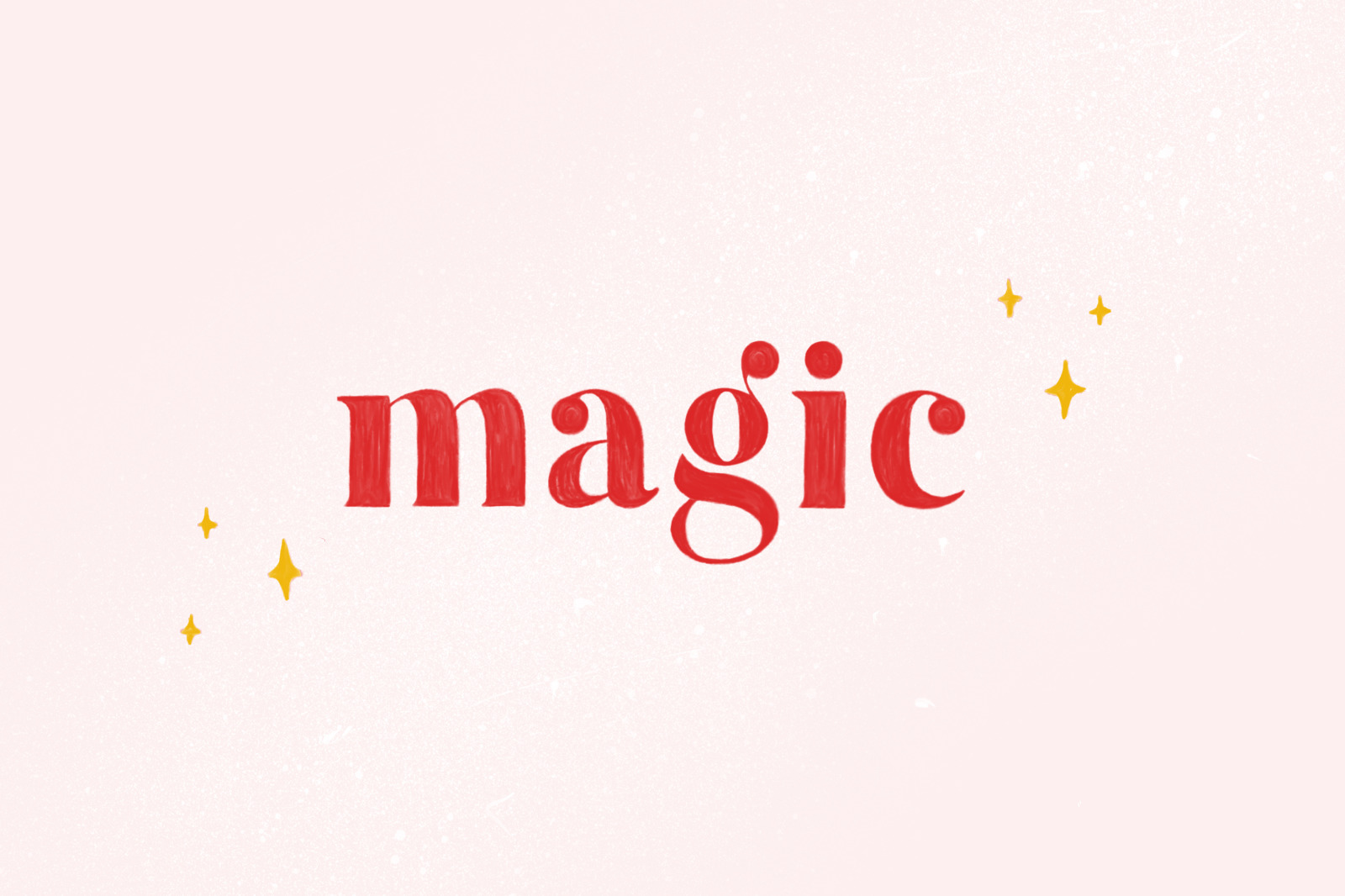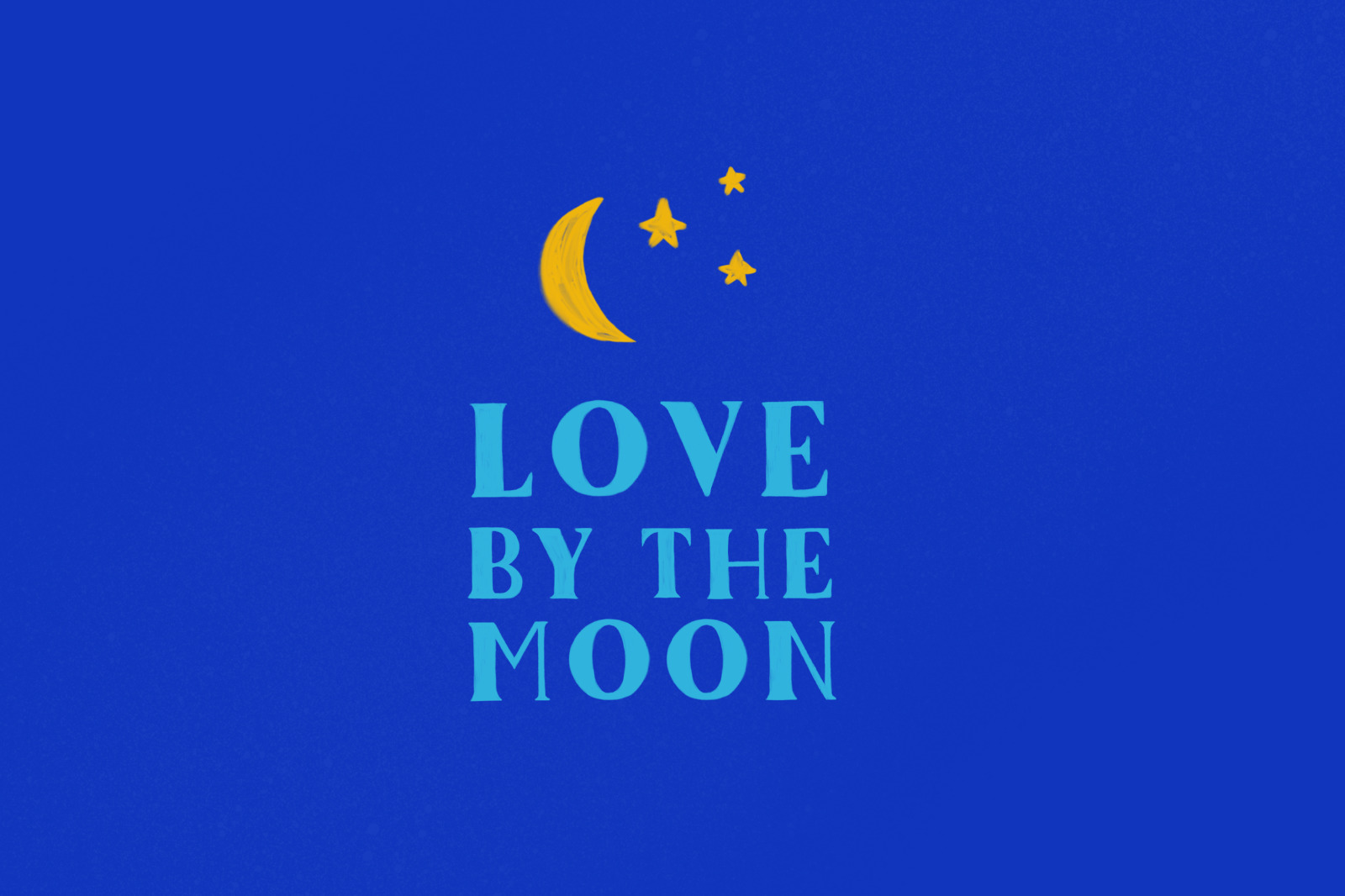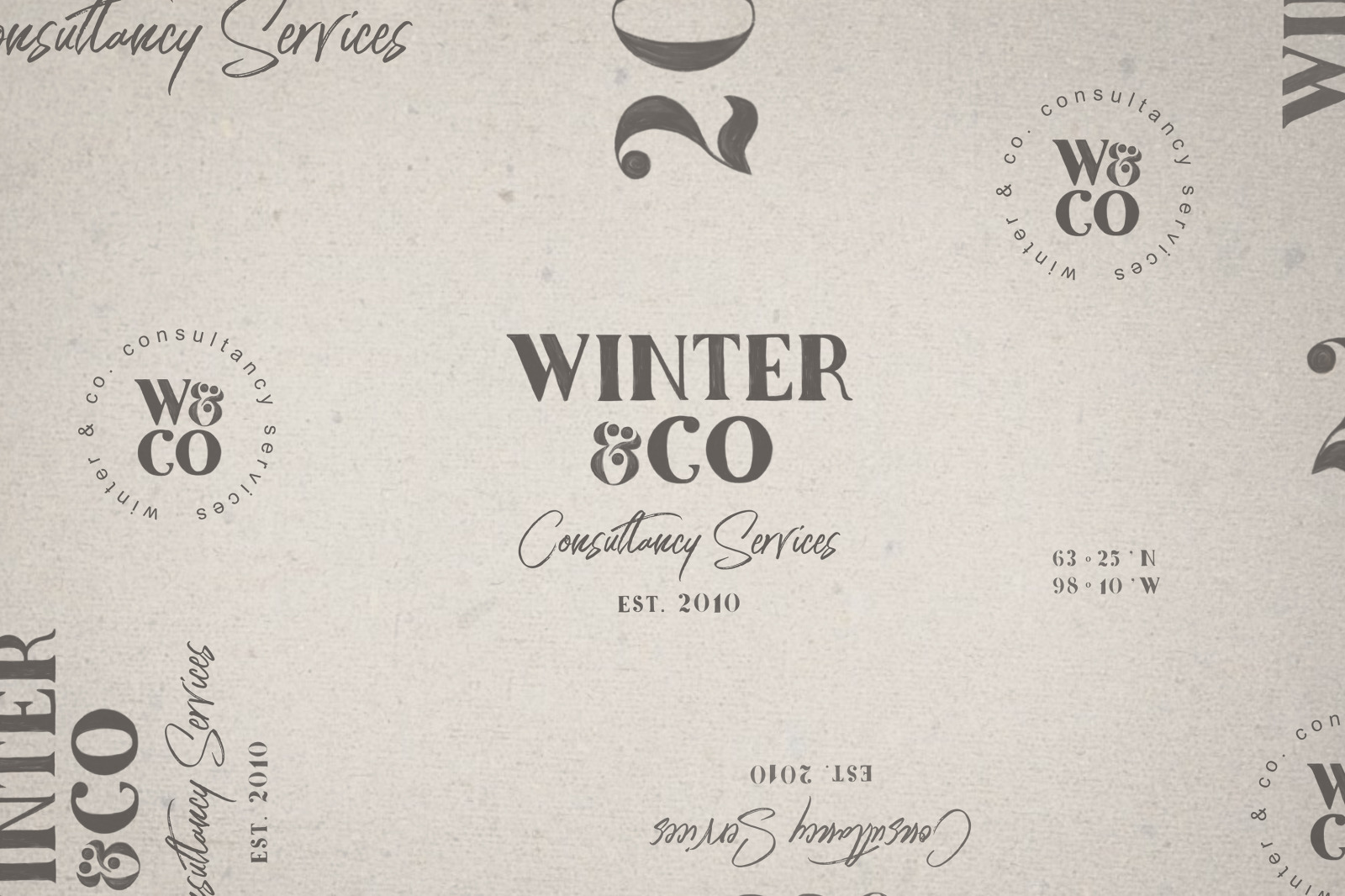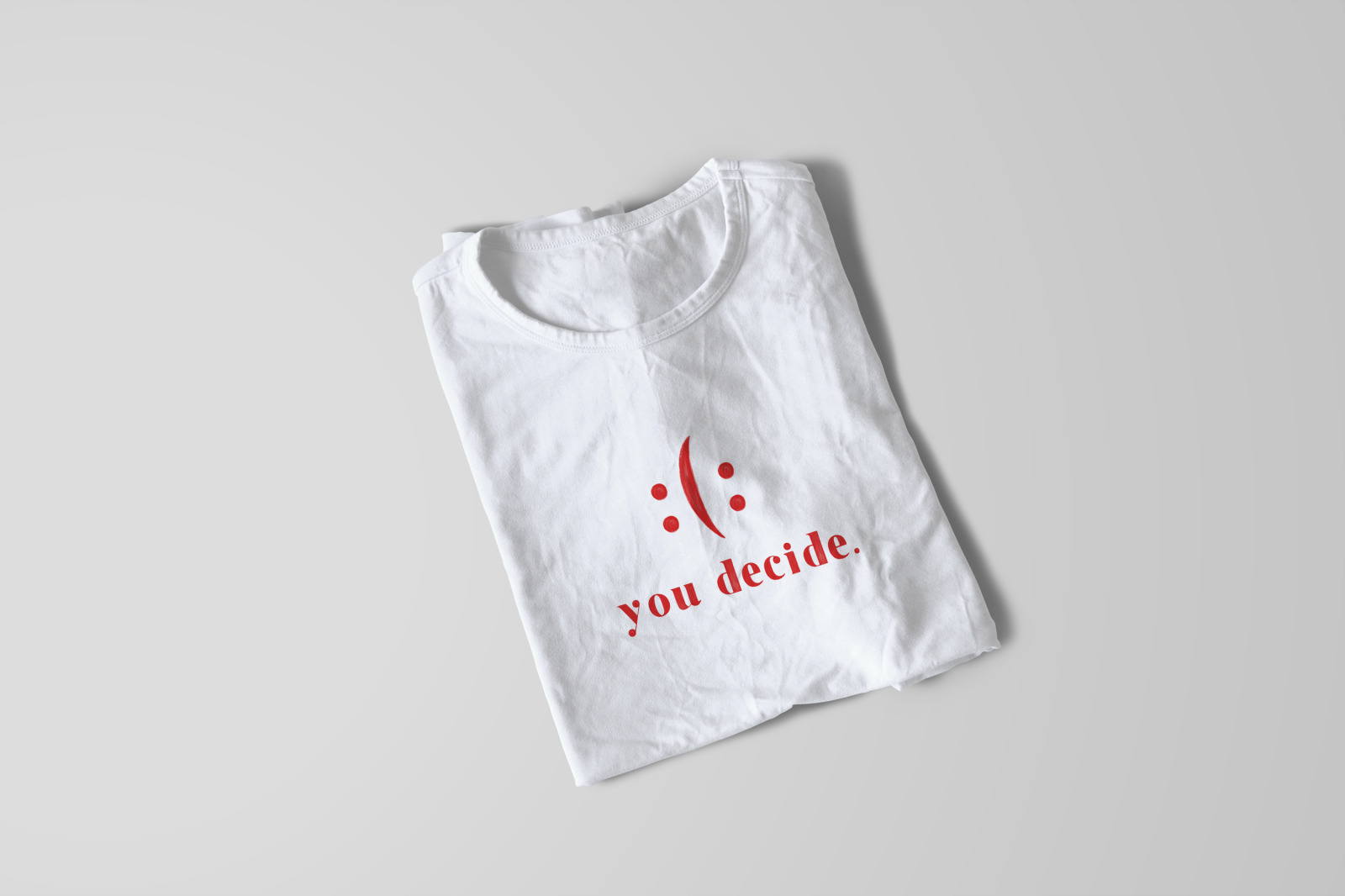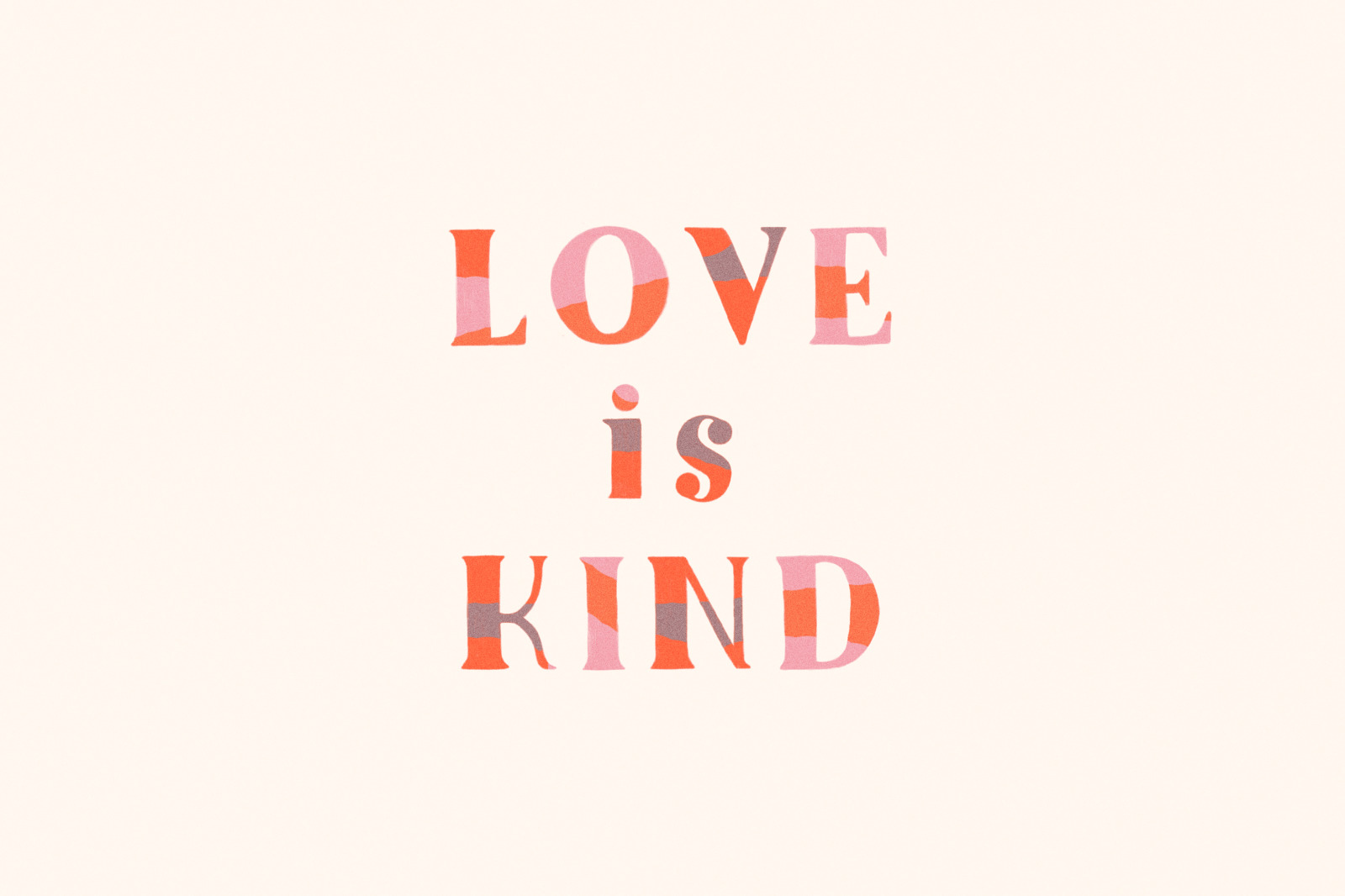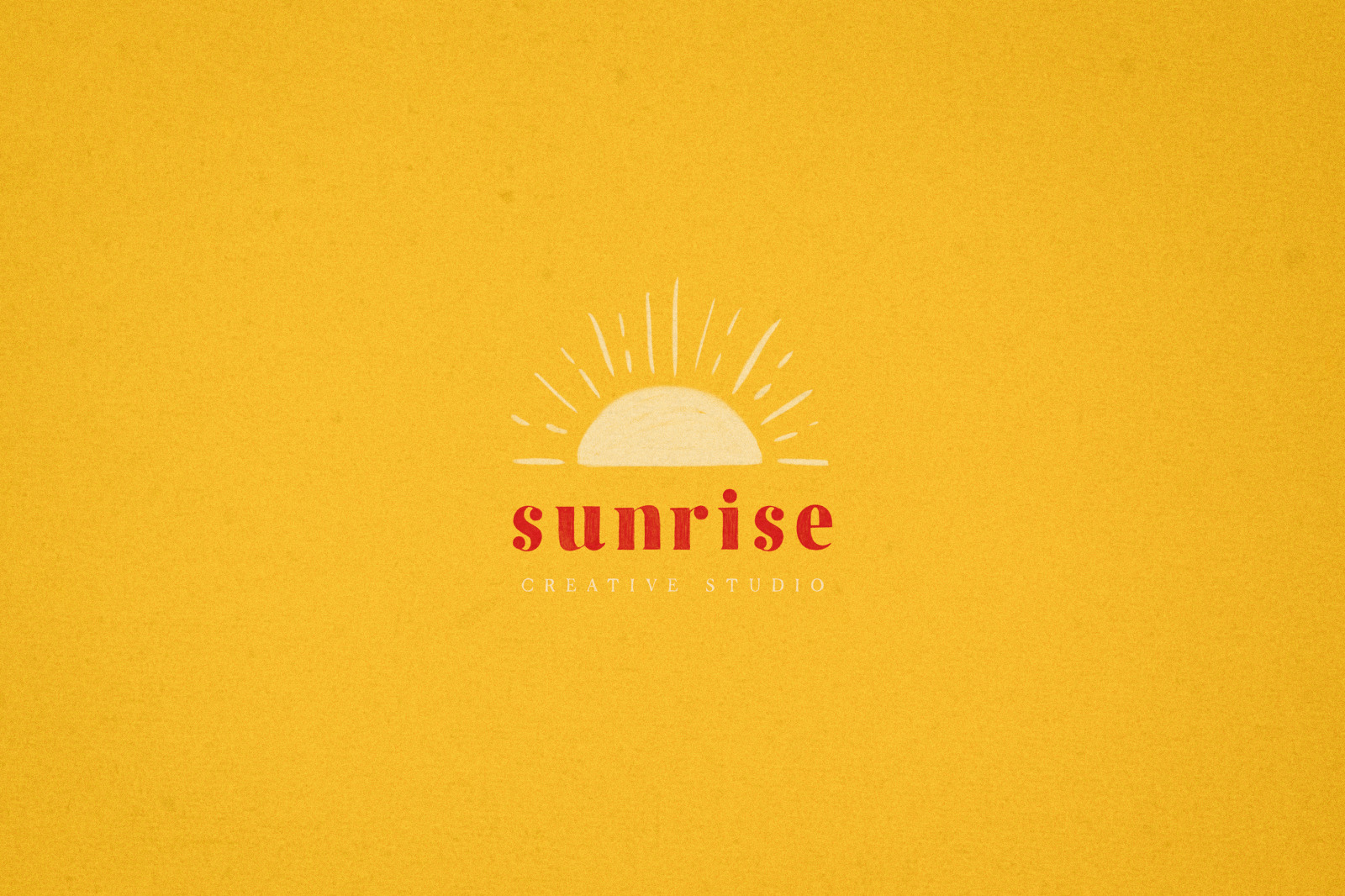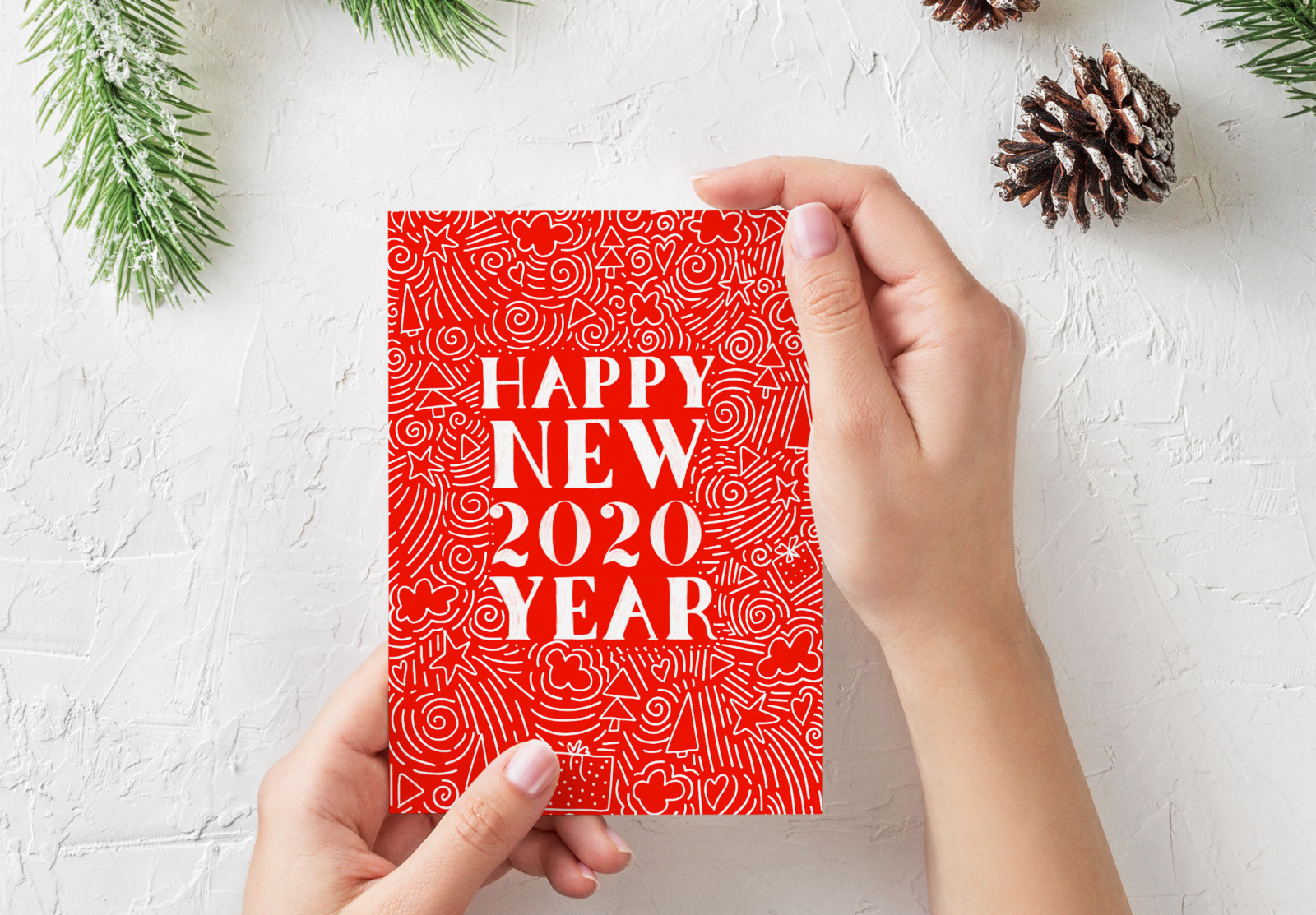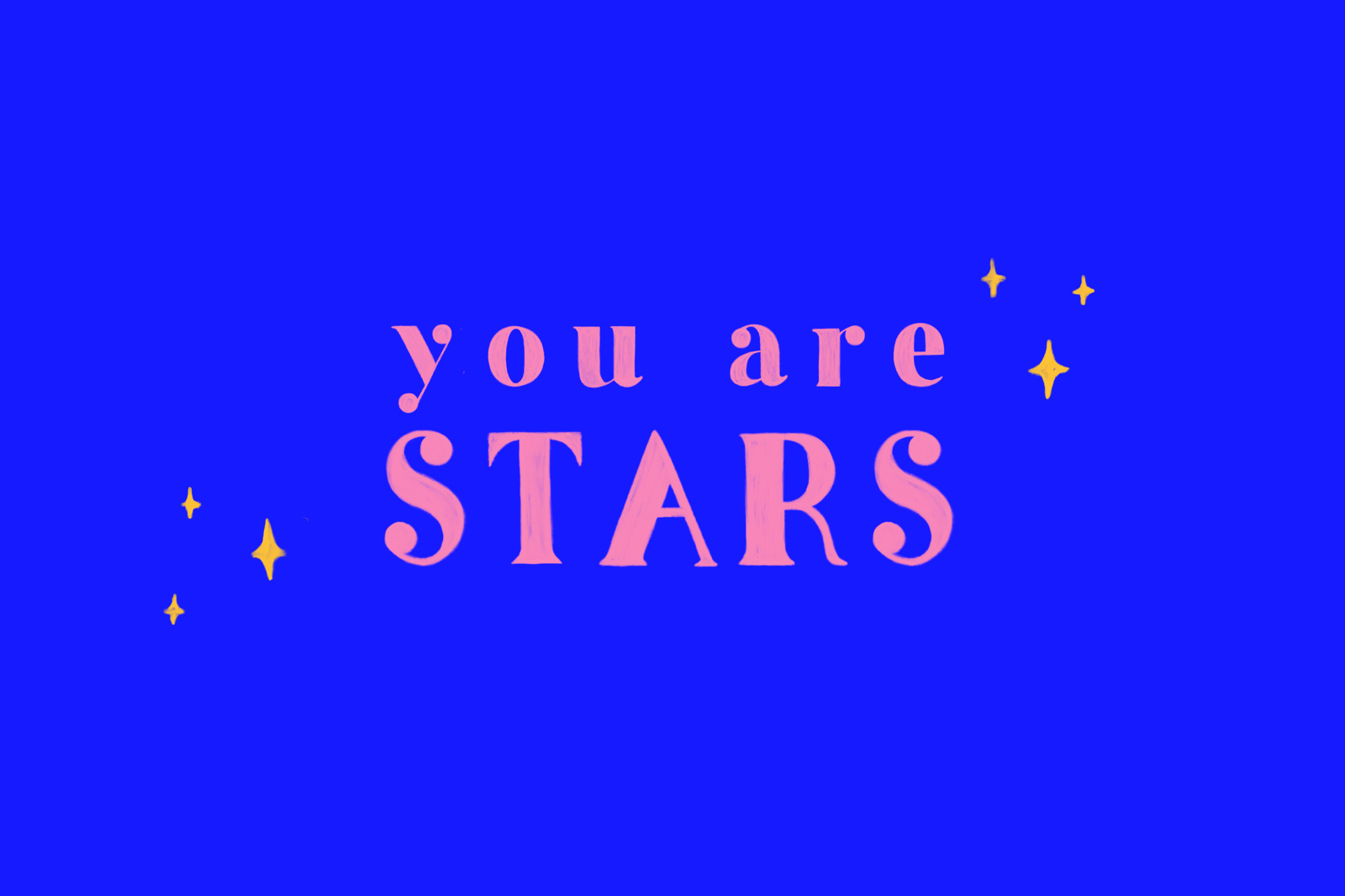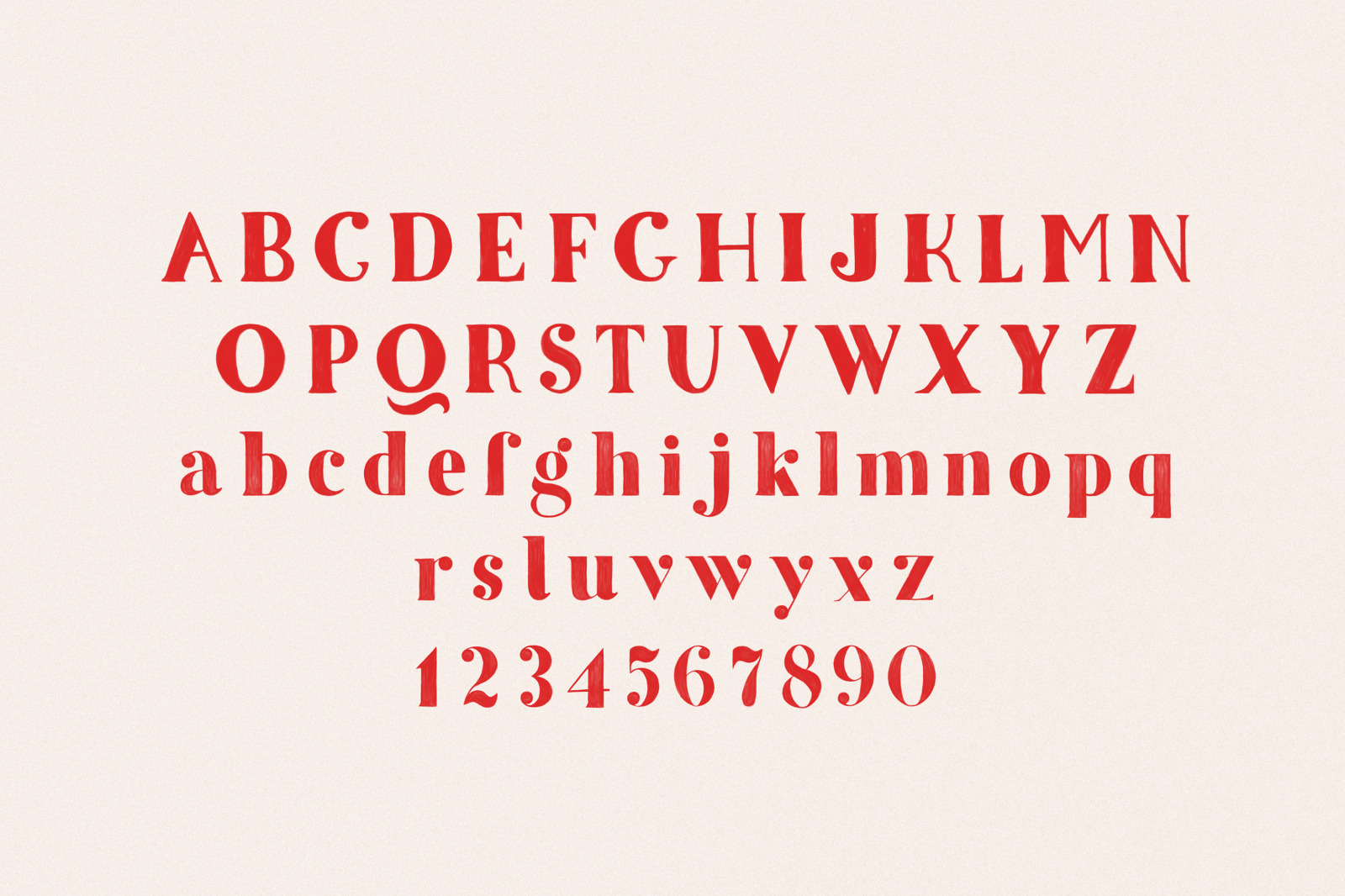
Magic - Colour SVG Font + Extras
Magic - Colour SVG Font + Extra Doodles!
All the letters are raster bitmap font - each letter has been painted a dozen of times.